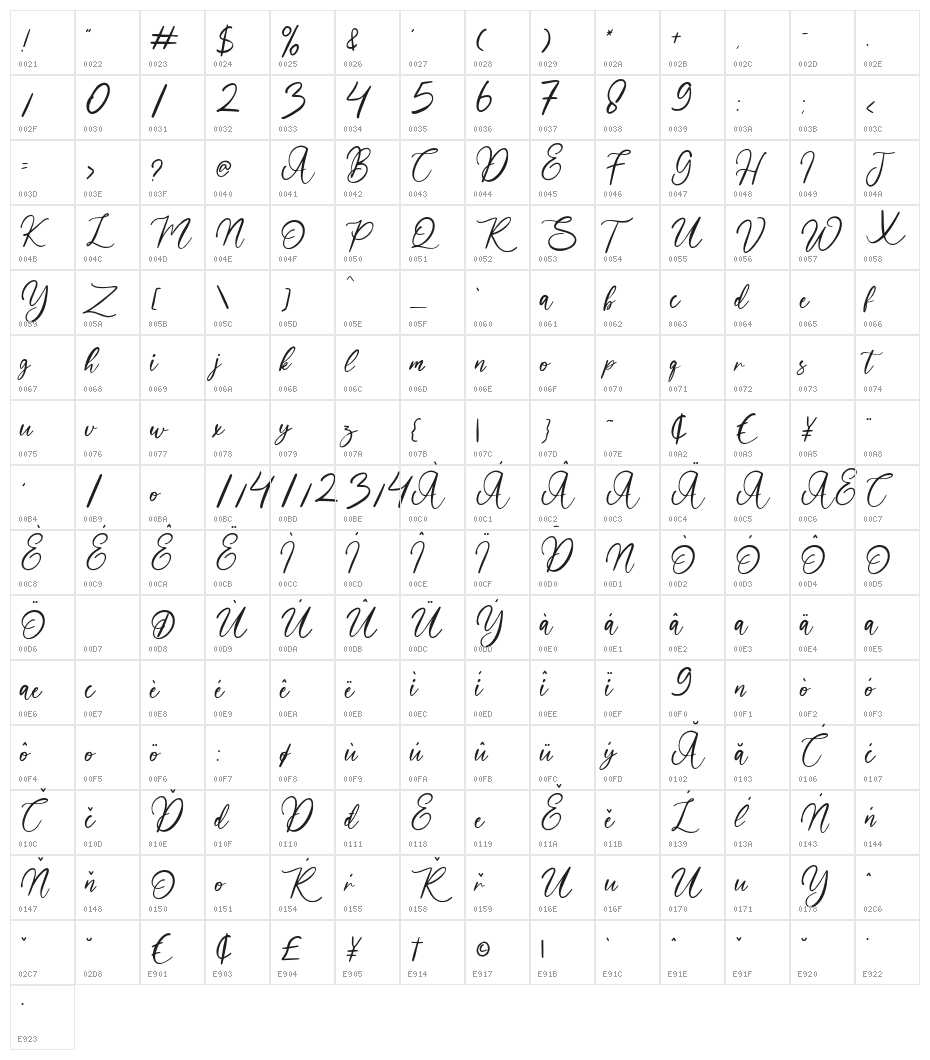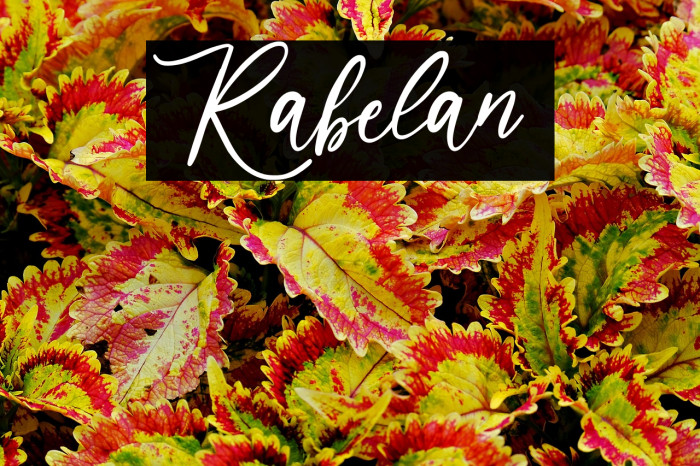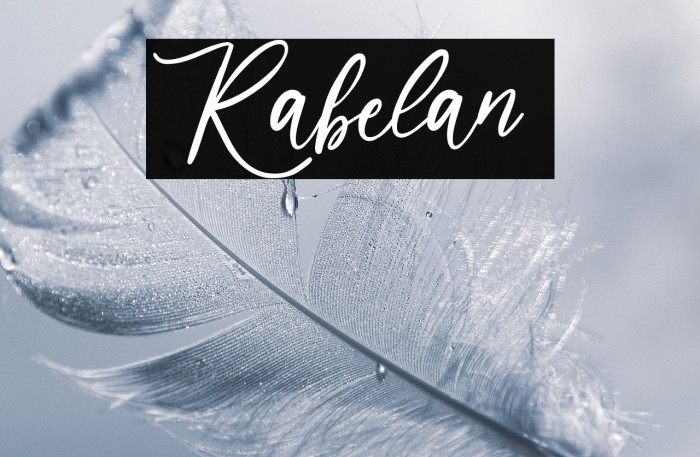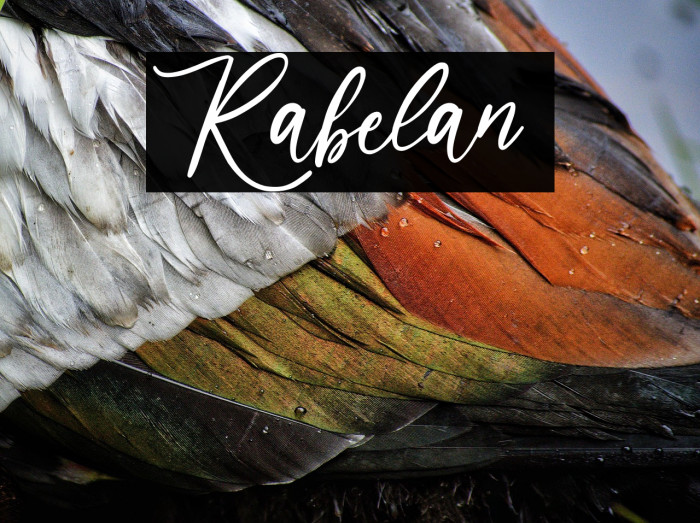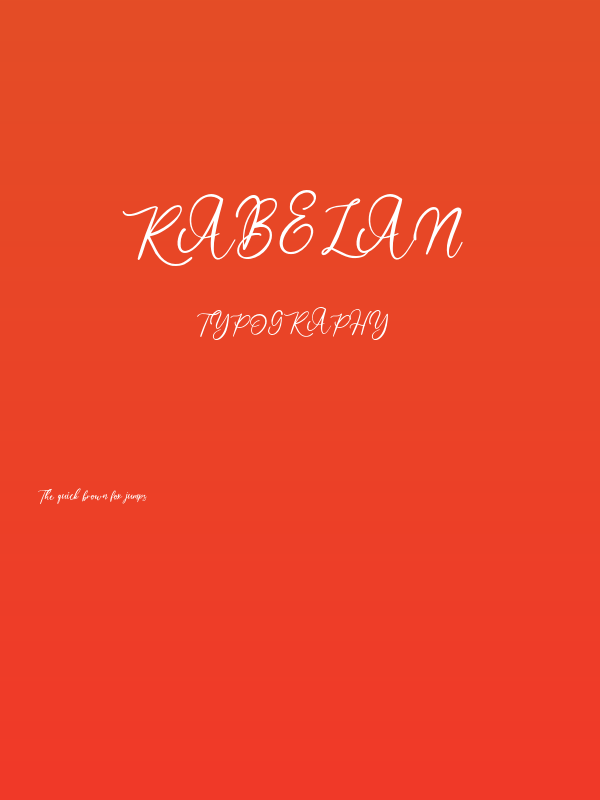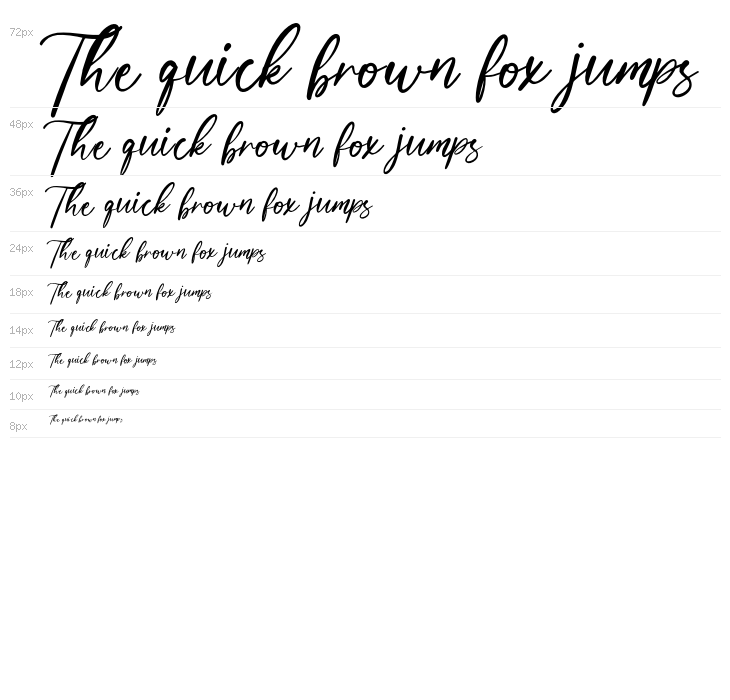
Rabelan Font
Rabelan Description
This elegant script font features fluid, cursive strokes that give it a sophisticated and artistic appearance. The uppercase letters are gracefully connected, while the lowercase letters maintain a smooth flow, making it ideal for creating a sense of movement and elegance. The numerals are consistent with the overall style, maintaining the script's fluidity. Special characters are designed to blend seamlessly with the letters, enhancing the font's versatility. This font is perfect for projects that require a touch of elegance and creativity, such as wedding invitations, branding, and artistic designs.
| Overall Style | Elegant, Artistic |
| Use Case | Headlines, Invitations, Branding |
| Proposed Projects | Ideal for wedding invitations, branding, artistic designs, and elegant stationery. |